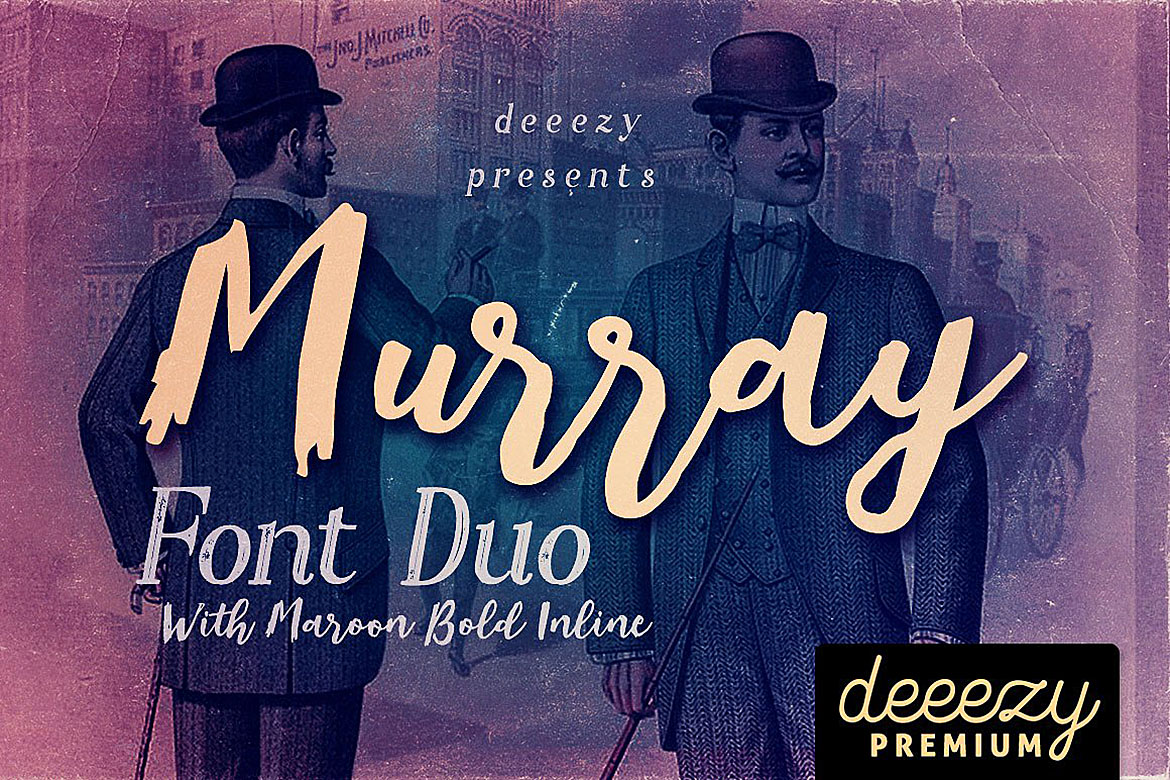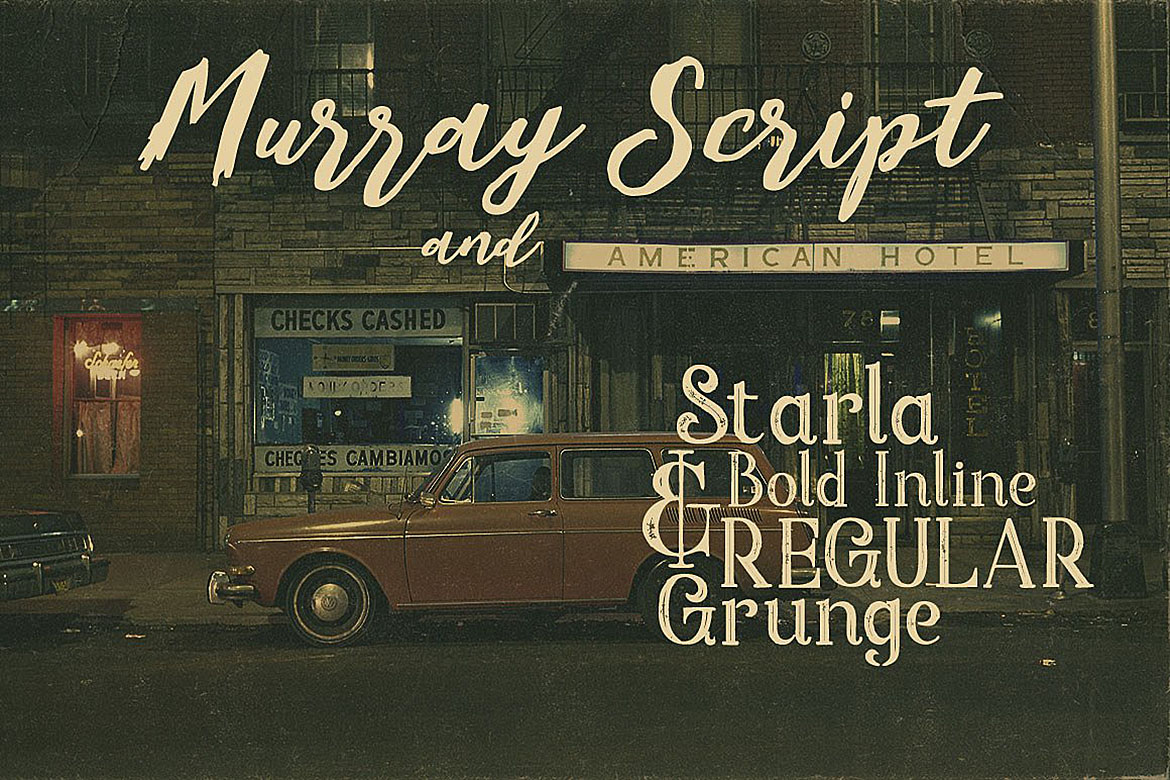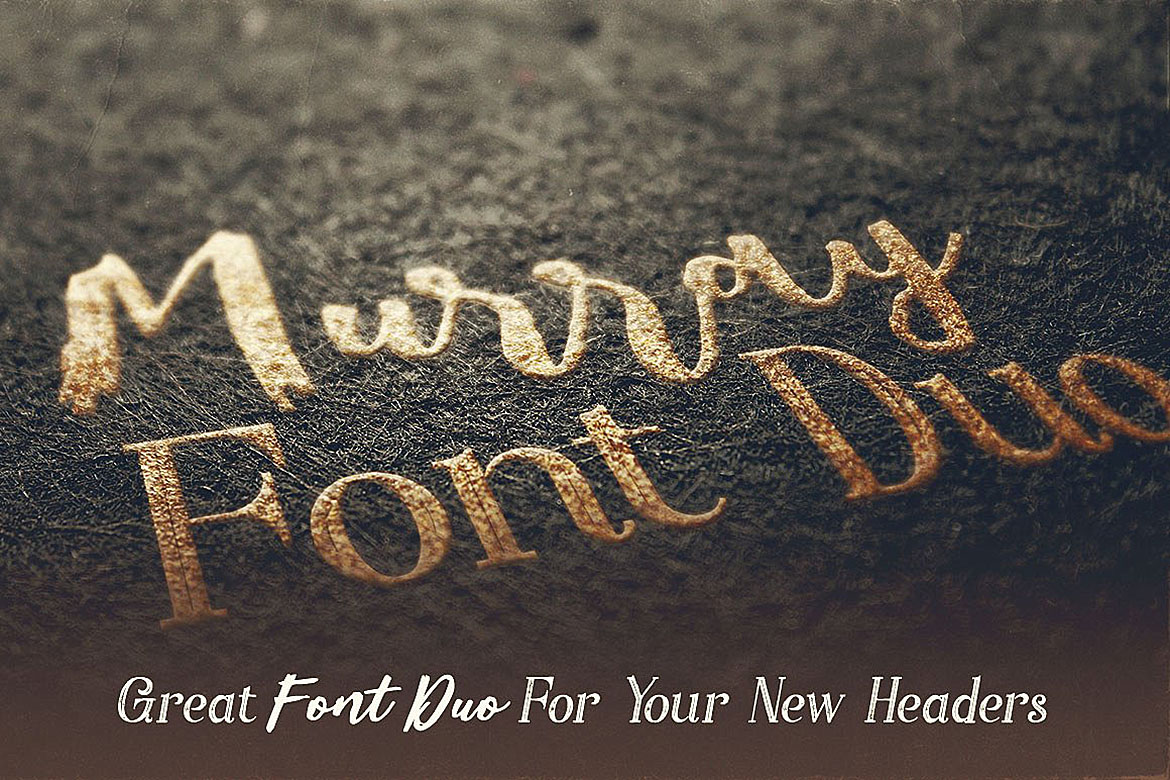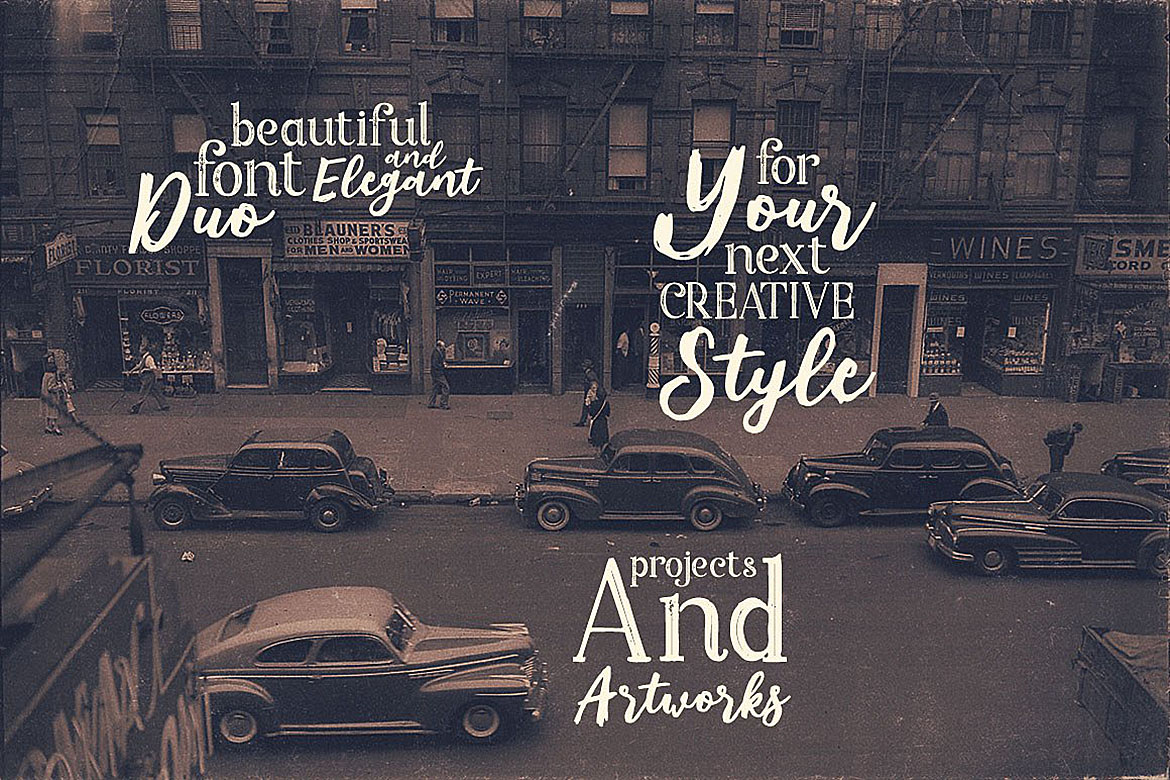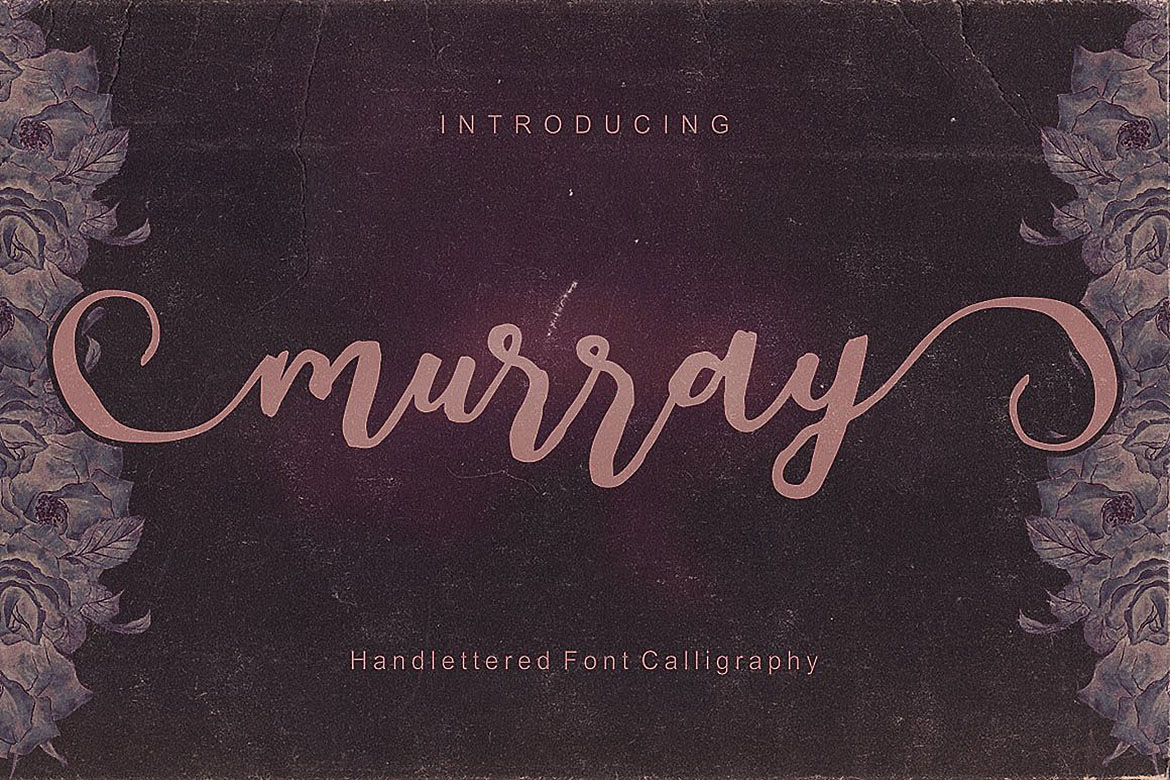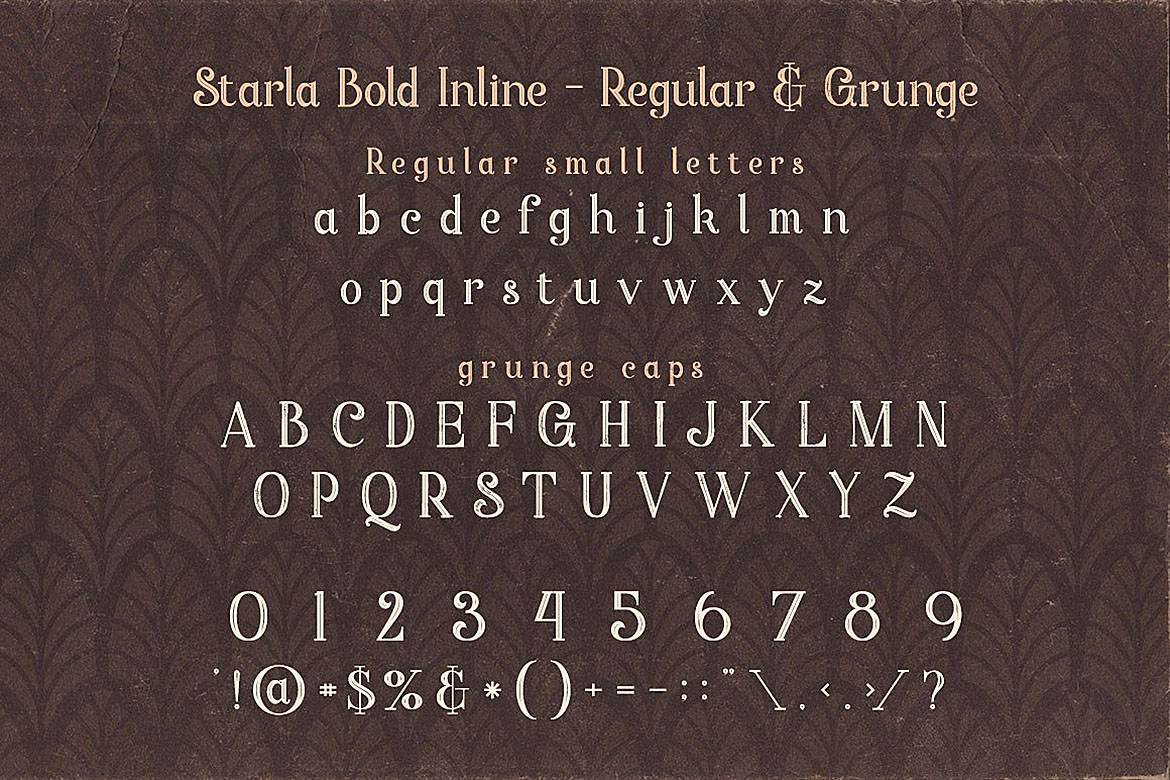
Murray Script Font Duo Font
About Murray Script Font Duo Font
Cool retro or vintage style font duo for your new projects.
First font is handdrawn & unique brush style script font with multi language support and lot of stylistic alternates.
Second font is inline serif display font with regular & grunge version (without multi language support).